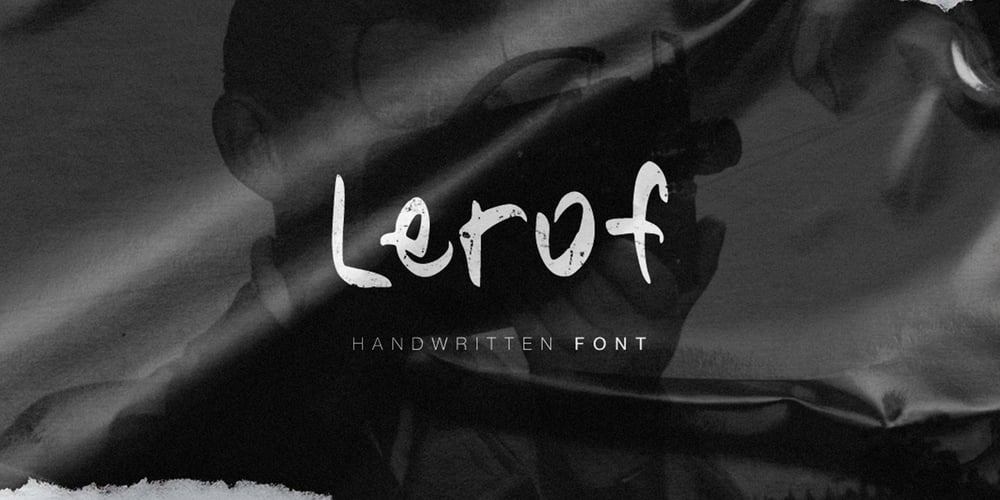
Lerof Font Family was designed by Nick Asphodel and published by Asphodel Design. Lerof contains 1 styles and family package options. Lerof – A Timeless ScriptCreate bold, gorgeous headlines and cool designs with a vintage flair. Lerof’s contrasting lines and curved terminals give a sleek, elegant look to logos, holiday and business cards, quotes, advertisements, and more. The font is written by hand and each letter is unique; not one element in the font is repeated! Many different variation of letter forms to choose from.Create something beautiful today with Lerof.What’s included? 327 Unique Glyphs Lowercase Characters Discretionary Ligatures Math Characters Multilingual support for various languages including: French, German, Spanish, Portuguese, Italian, Dutch, Finnish, Swedish, and more. Follow my shop for upcoming updates, and for more of my work!Happy Creating!